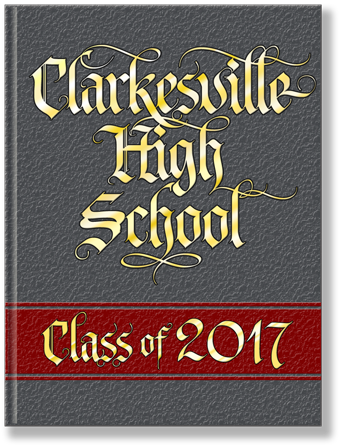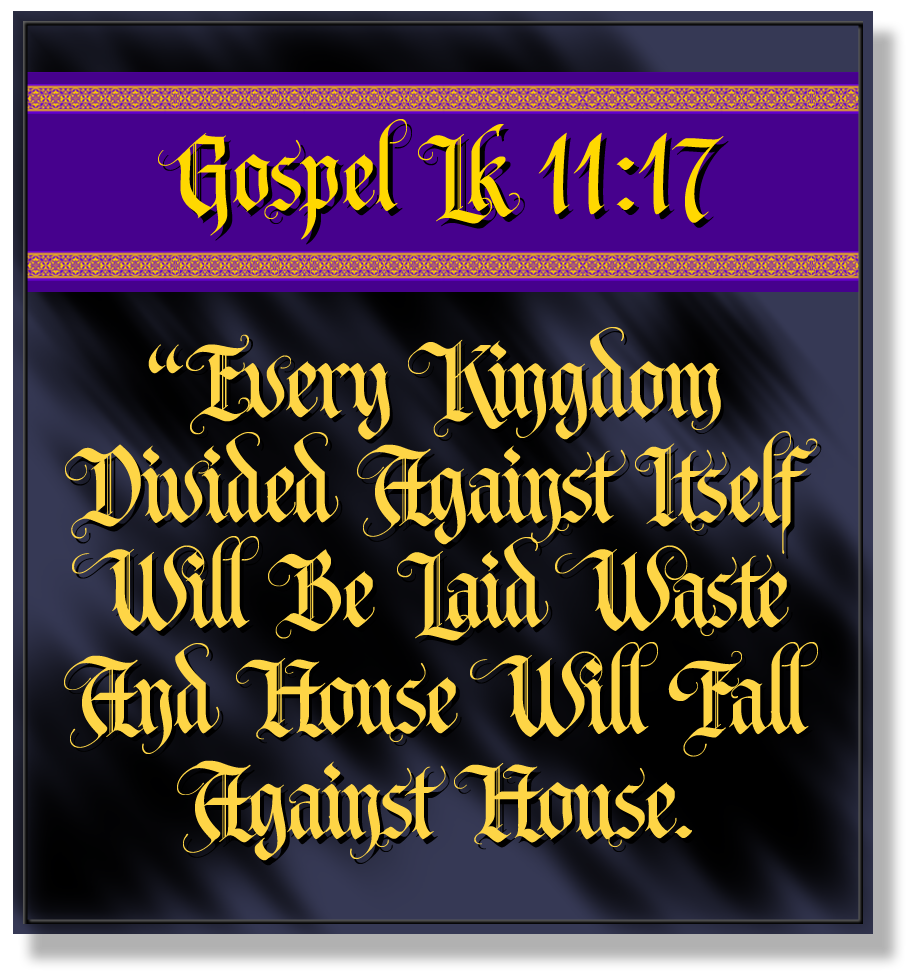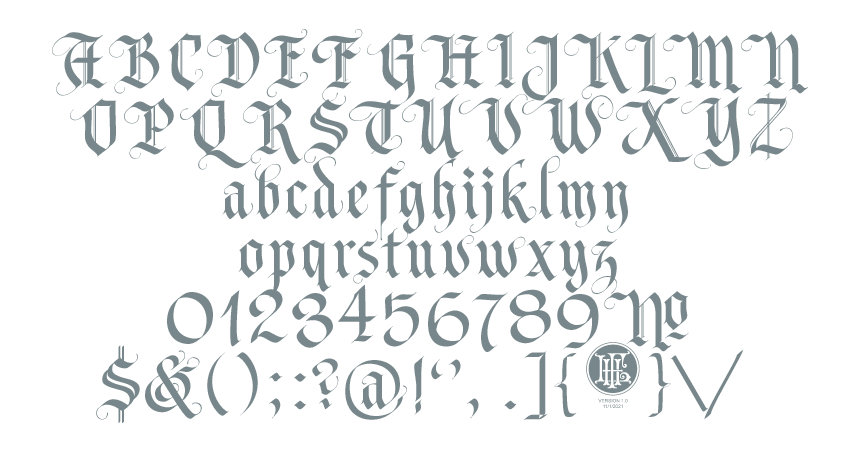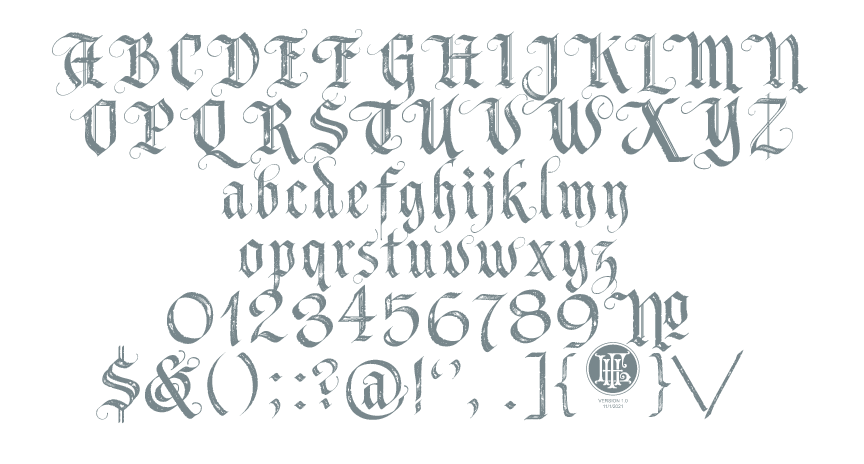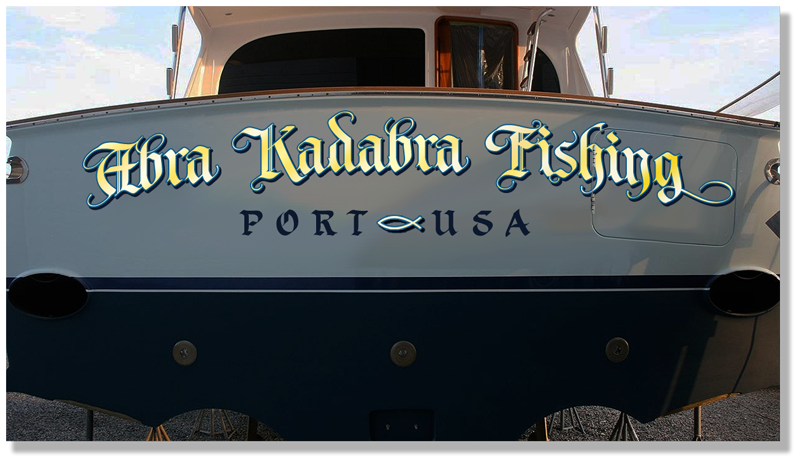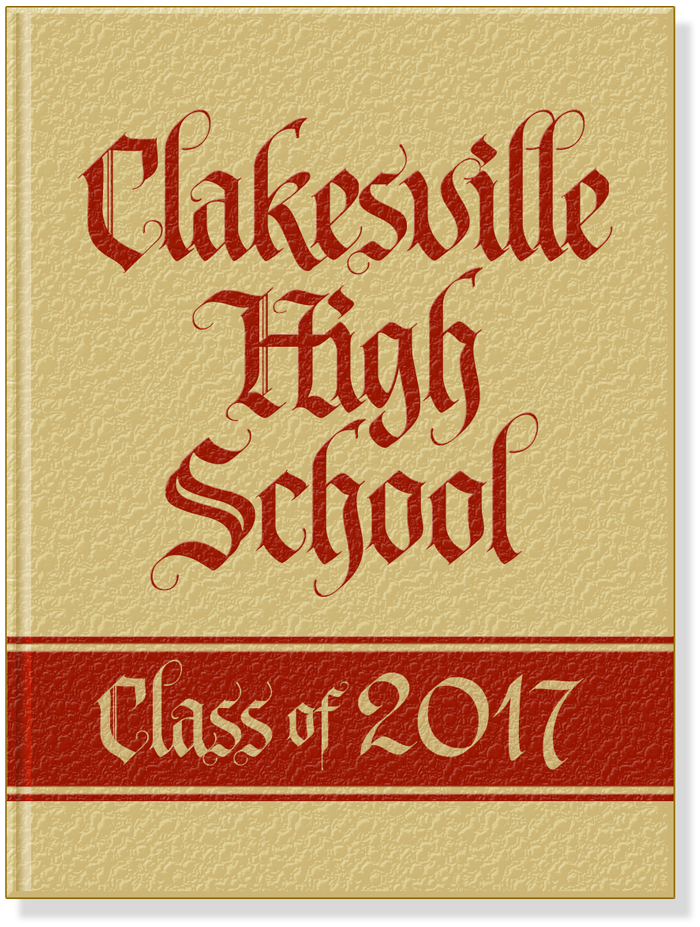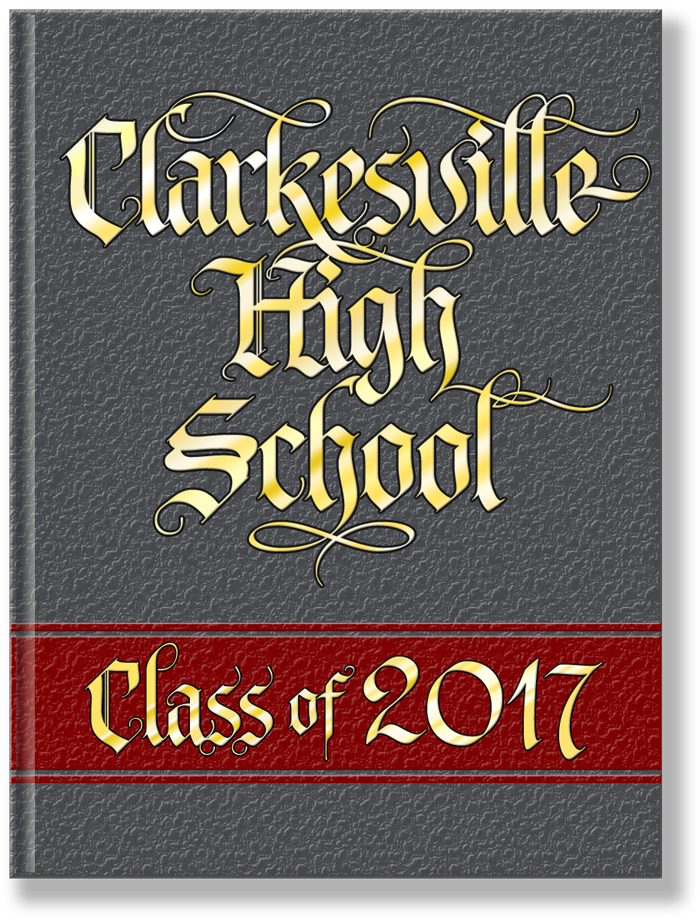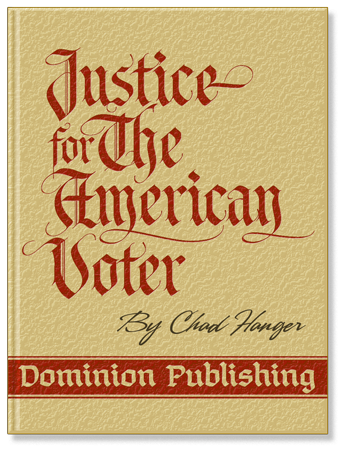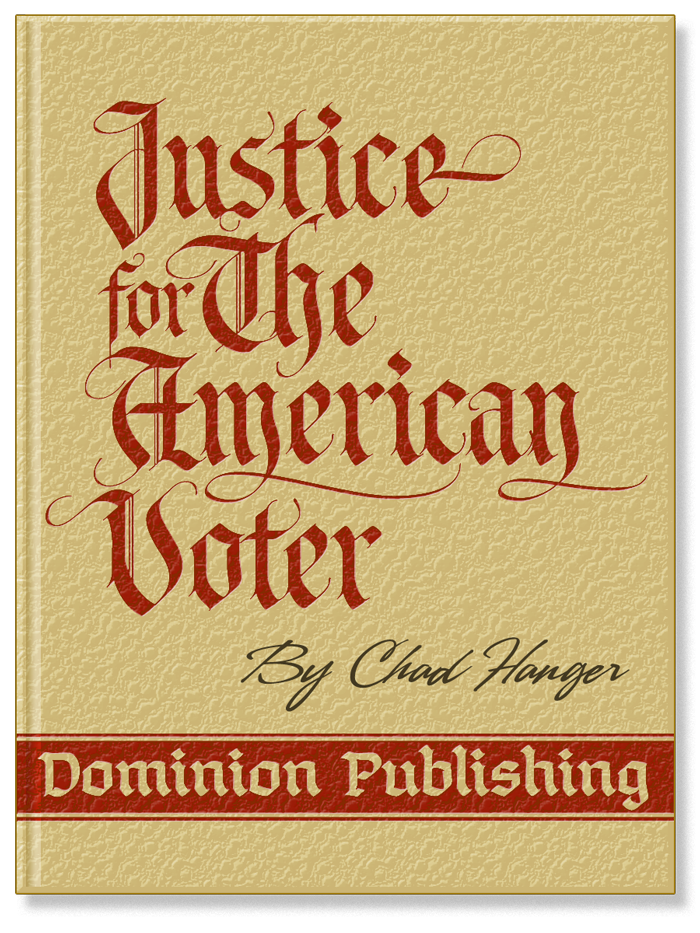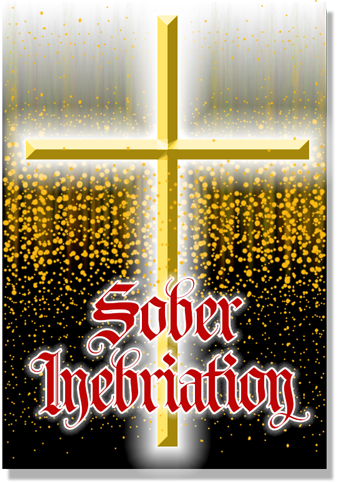
Tributary2 was designed without the decorative flourishes which
embellish many of the left-most stems of the capatal characters in
Tributary1. This feature allows the Graphic Artist the ability to substitute
one version for the other or as many capitals as their design needs require
from either Tributary version.
Tributary2 is also available in both regular
and distressed versions. Tributary2 also has 114 alternate and swash
characters
standard in both versions.
Tributary2 Regular
Tributary2 Distressed